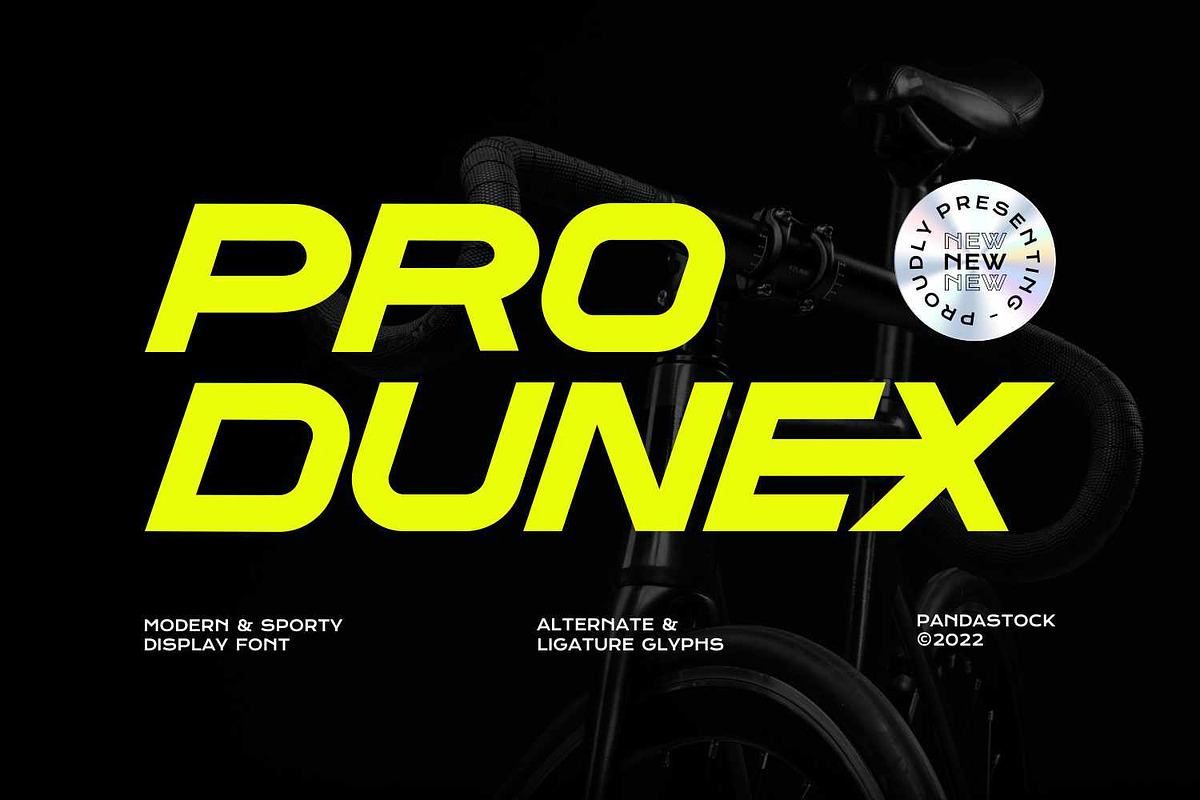
Pro Dunex Modern Typeface Free Download is a sleek and contemporary sans-serif typeface designed for high-impact and professional design projects. With its geometric shapes and clean, straight lines, Pro Dunex is perfect for modern branding, logos, website typography, editorial layouts, and more.
Its minimalist and sharp appearance provides an air of sophistication and professionalism, making it ideal for both digital and print applications. Whether you're designing for a tech company, fashion brand, or corporate business, Pro Dunex ensures your typography stands out with style and clarity.
The font includes uppercase and lowercase letters, numerals, punctuation, and multilingual support, offering versatility for a wide range of design needs.